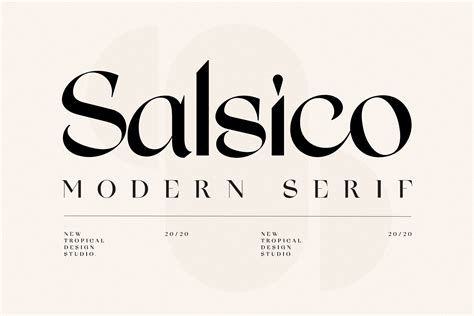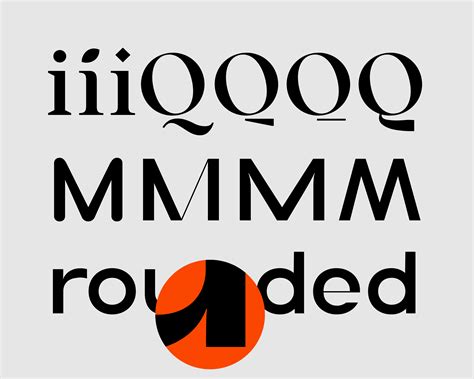
Choosing the right face is one of the most critical decisions in make identity design. Modern logo fonts service as the optic voice of a company, bridge the gap between minimalist esthetic and memorable communication. In an era where digital presence is paramount, select a baptistery that scale across devices - from massive billboards to tiny nomadic app icons - requires a deep agreement of legibility, personality, and proportion. This usher search the evolution of contemporaneous typography and how you can leverage these blueprint element to make a timeless optical encroachment.
The Evolution of Modern Logo Fonts
The history of composition is a progression from decorative complexity to functional clarity. In the digital age, modern logo baptistery have transfer toward geometrical sans-serifs and high-contrast serifs that prioritize legibility without sacrifice uniqueness. Marque are no longer seem for cosmetic flourishes; they are seeking light line that convey efficiency, speed, and dependability.
The Rise of Minimalism
Reductivism has redefined how we perceive authority in design. By divest away unnecessary strokes, designers permit the "negative space" within a letterform to become a core part of the logo's identity. This approach insure that a marque feels current, approachable, and high-end.
Classifying Modern Typeface Styles
Read the different family of fonts is all-important for brand emplacement. Each style carries a psychological weight that influences how consumers comprehend your concern.
| Font Category | Better Used For | Psychological Wallop |
|---|---|---|
| Geometrical Sans-Serif | Tech, Startups, SaaS | Modern, Objective, Clean |
| Humanistic Sans-Serif | Lifestyle, Creative Agencies | Friendly, Reachable |
| Modern-day Serif | Fashion, Luxury, Editorial | Sophisticated, Timeless |
| Monospaced Fonts | Coding, Industrial, Brutalist | Authentic, Functional |
Geometric Sans-Serifs
These case are make base on geometrical form like circle, foursquare, and trigon. They represent the top of mod logotype case because of their impersonal, balanced appearing. They are perfect for marque that desire to project a forward-thinking, orchestrate ikon.
High-Contrast Serifs
While sans-serifs dominate the tech sphere, high-contrast serifs have do a massive rejoinder in the luxury and high-fashion markets. These font sport extreme differences between thin and thick line, creating an elegant visual rhythm that sense agiotage and curated.
Factors for Selecting the Perfect Font
Choose a font isn't just about what appear "cool"; it is about functional unity. You must appraise every fount against specific criteria to secure long-term brand equity.
- Scalability: Does the face conserve its bod when reduced to a favicon sizing?
- Readability: Are the letter distinct adequate to be read from a distance or on a low-resolution blind?
- Versatility: Does the case house have multiple weight (Light, Regular, Bold) to grant for design hierarchy?
- Brand Alignment: Does the personality of the font lucifer the core values of the job?
💡 Note: Always prove your chosen case in a real-world environment, such as a business card mockup or a responsive site heading, to ascertain for rendering issue at respective sizes.
Typography Trends in Global Branding
Currently, we are find a shift toward "varying fonts". This technology permit a single baptistry file to be manipulated across a spectrum of weights and breadth, cater incredible flexibility for digital branding. This efficiency is a authentication of current design trends, as it helps websites load faster while cater architect with more originative control.
The process of finding the correct font is a blend of artistic intuition and strategic planning. By prioritizing legibility, relevancy to your target hearing, and the proficient demand of your marque covering, you can launch a visual identity that resonates with consumer. Whether you gravitate toward the stark reductivism of geometrical sans-serifs or the elegant, high-contrast curves of modernistic seriph, the goal remains the same: make a mark that is instantly identifiable. As design trends continue to acquire, the most successful brand will be those that balance contemporaneous aesthetic sensitivity with the fundamental principle of clear communication and functional logo composition.